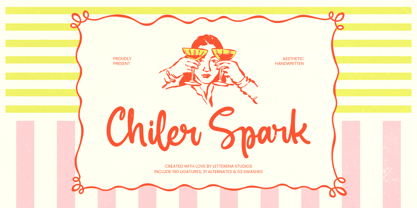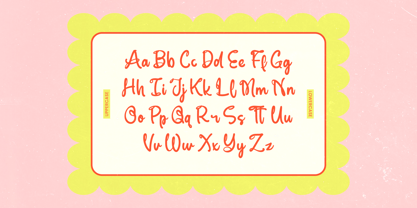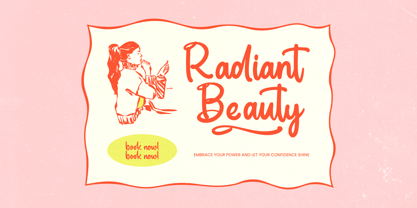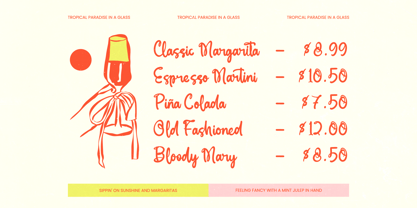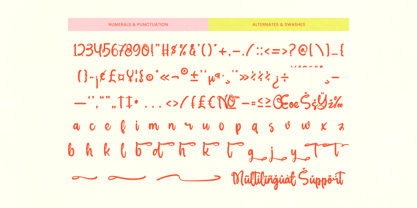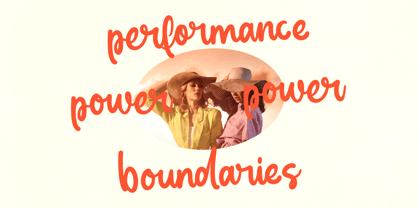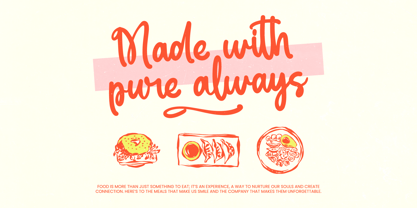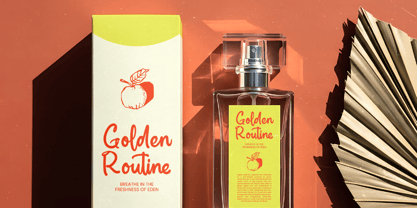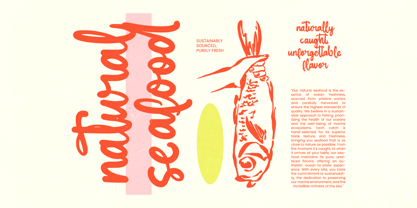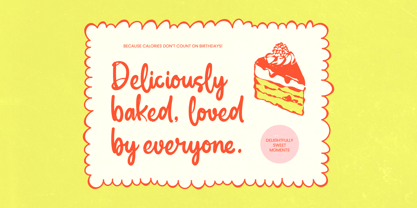
Chiler Spark
The Chiler Spark Font Family was designed by Heru Utama Putra and published by Letterena Studios. Chiler Spark contains 2 styles and family package options. More about this family
Chiler Spark - Aesthetic Handwritten  Chiler Spark is an aesthetic handwritten script font crafted to bring warmth, personality, and effortless charm to your designs. With its smooth brush strokes, natural flow, and expressive curves, this typeface captures a lively yet elegant handwritten feel. Ideal for branding, packaging, social media graphics, invitations, fashion labels, café menus, and creative marketing materials, Chiler Spark adds a vibrant and personal touch to every layout. Featuring 190 ligatures, 31 alternates, and 3 swashes, it offers flexible stylistic options to enhance your typography with seamless connections and decorative flair. Whether used for bold headlines or stylish signatures, Chiler Spark delivers character, energy, and modern handwritten appeal across print and digital platforms.